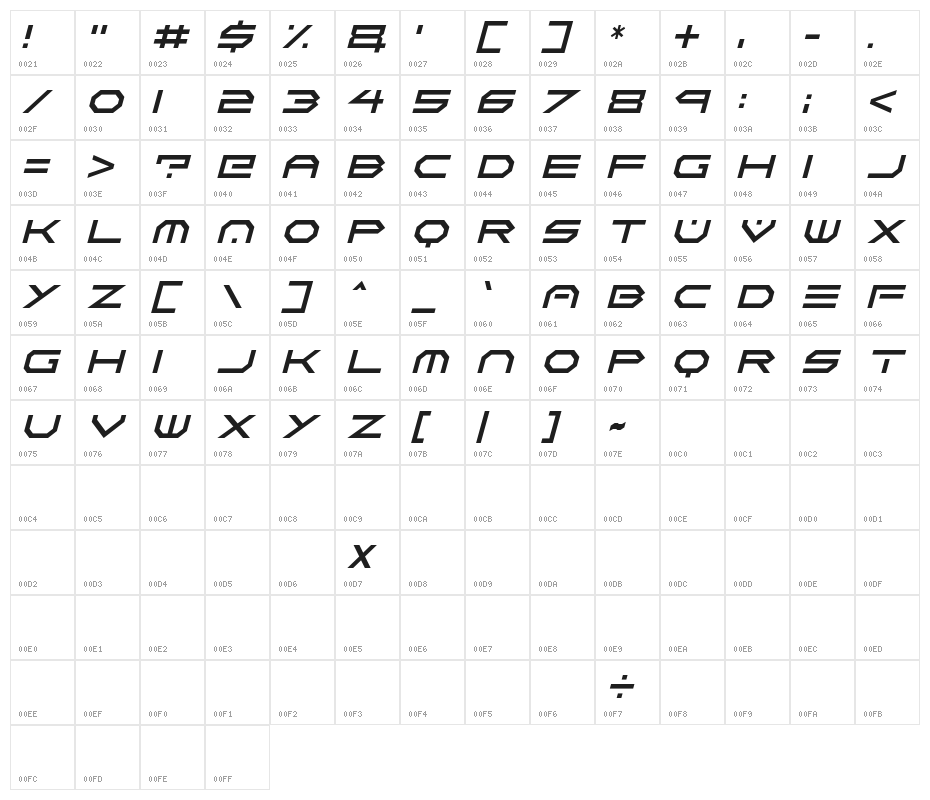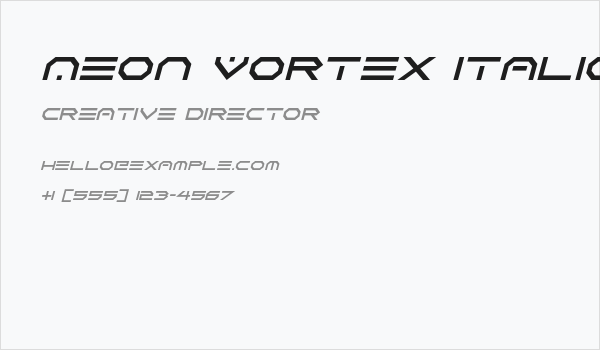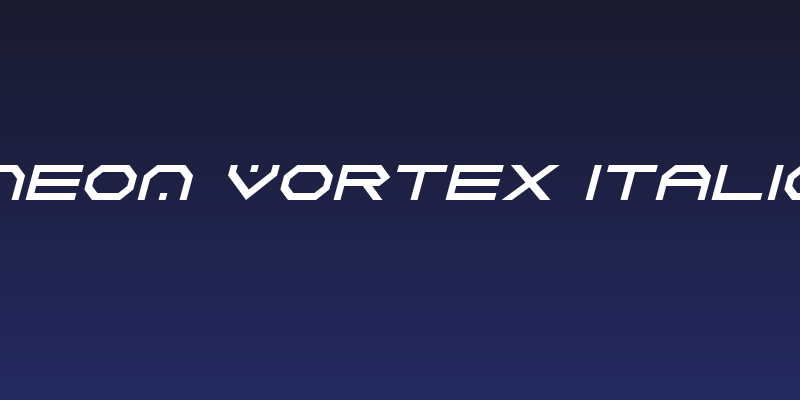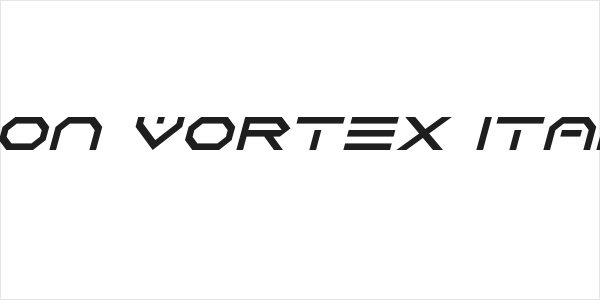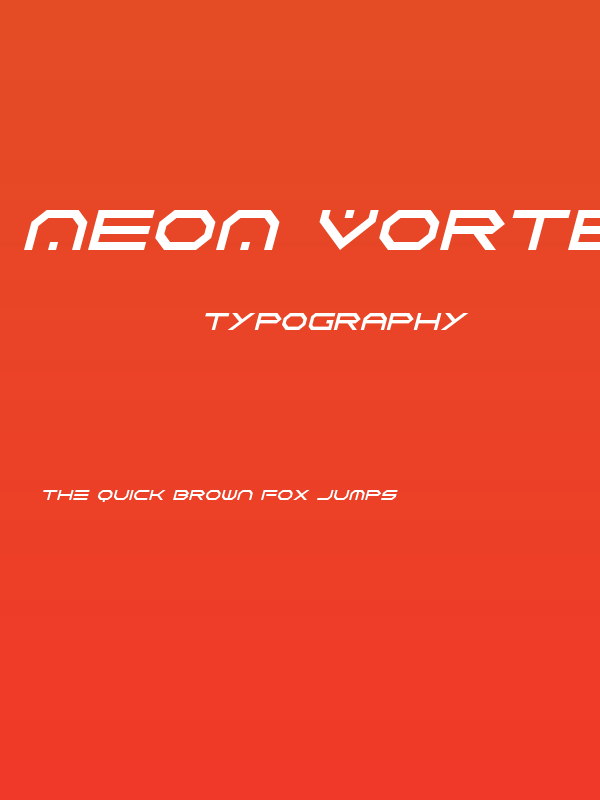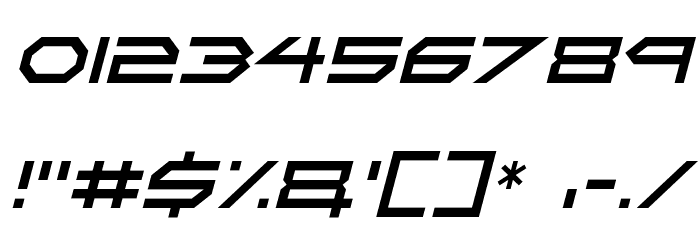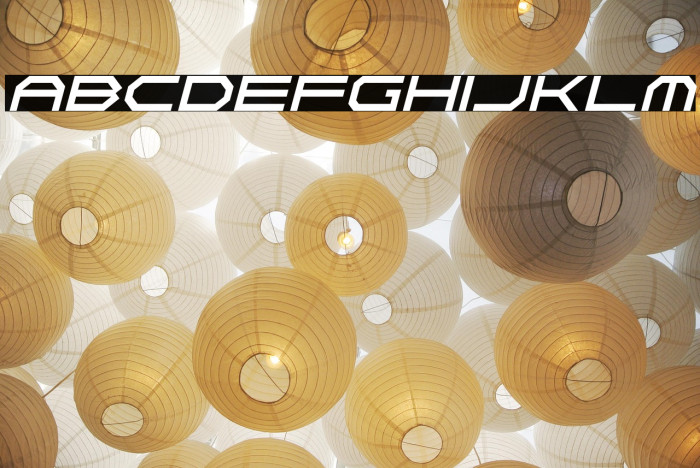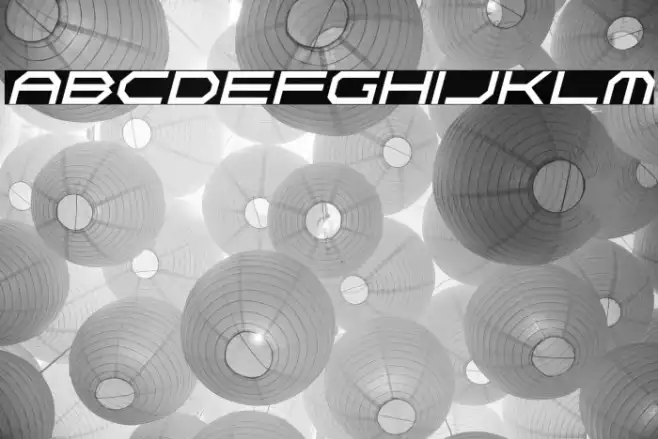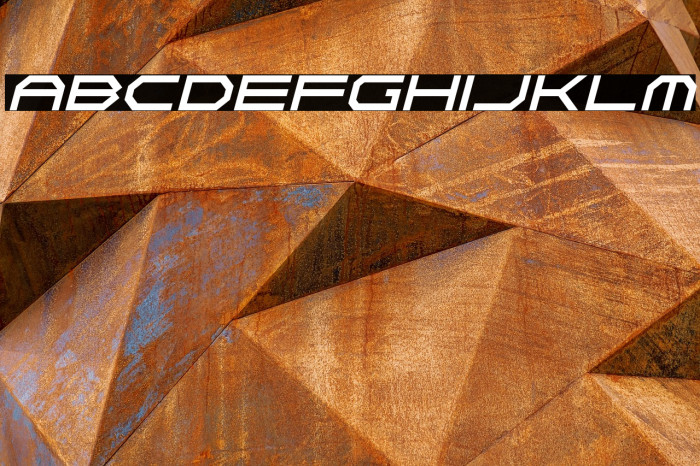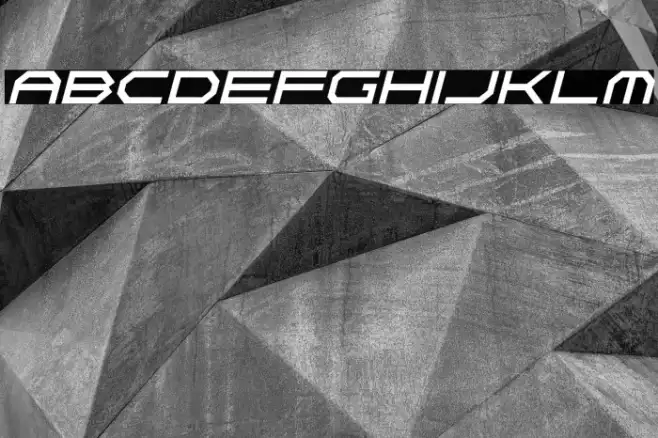
Neon Vortex Italic Font
Neon Vortex Italic Description
This font features a futuristic and angular design, characterized by sharp edges and a distinct italic slant. The geometric shapes give it a modern and dynamic appearance, making it stand out with its unique style. The uppercase and lowercase letters maintain a consistent angular theme, while the numerals and special characters complement the overall aesthetic. The font's boldness and slant create a sense of movement and energy, suitable for projects that require a contemporary and edgy look.
| Proposed Projects | Ideal for sci-fi themed designs, video game titles, tech branding, and modern advertising campaigns. |